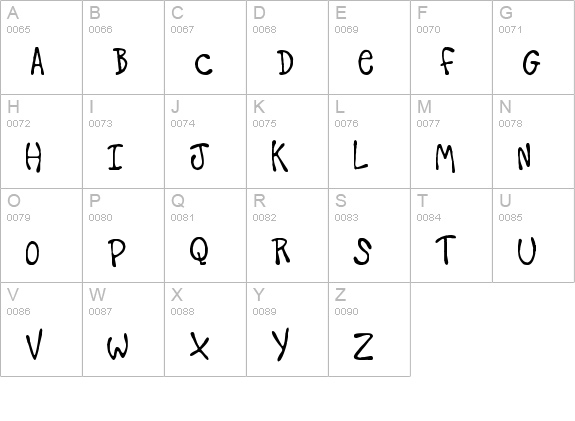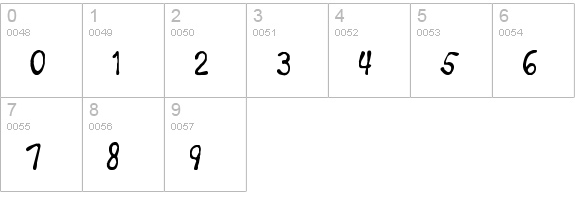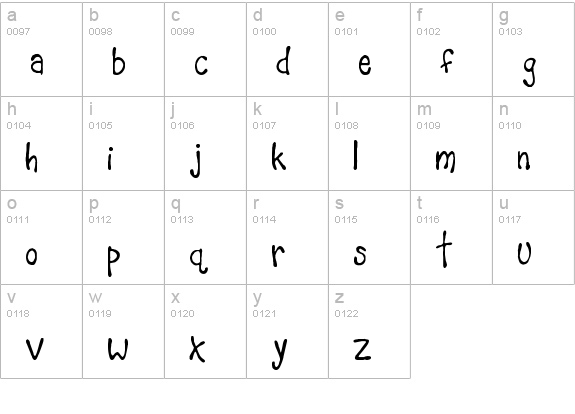
Teacher's Pet Font Details
Teacher's Pet font is a charming and playful typeface that captures the essence of youthful exuberance and academic whimsy. With its quirky and endearing letterforms, this font is perfect for creating fun and engaging designs for educational materials, children's books, and school-related projects. The rounded edges and friendly demeanor of Teacher's Pet make it a versatile choice for adding a touch of warmth and personality to your designs. Best of all, Teacher's Pet font is available for free download at FontsMarket.com. This means that you can easily access this delightful typeface and start incorporating it into your creative projects without any cost. Whether you're a teacher looking to add a touch of charm to your classroom materials or a designer seeking a playful font for your next project, Teacher's Pet is sure to become a favorite in your font collection. Download it today and let your creativity soar with this delightful and whimsical typeface.